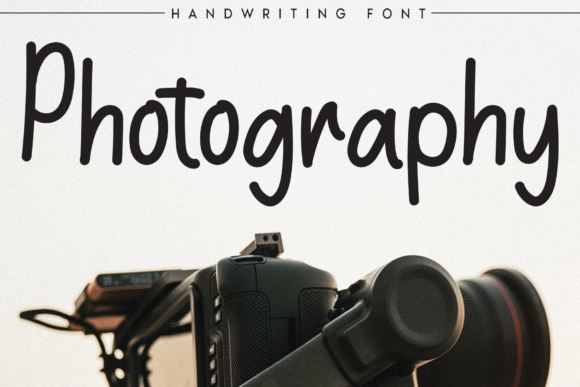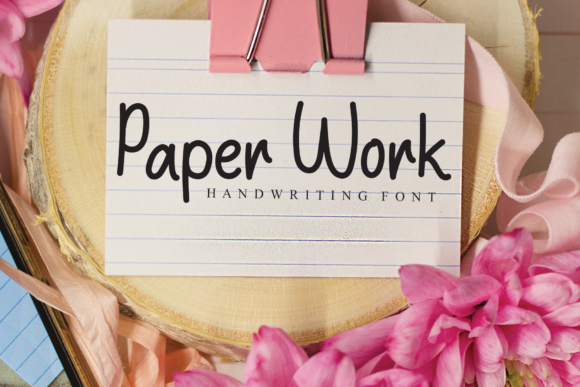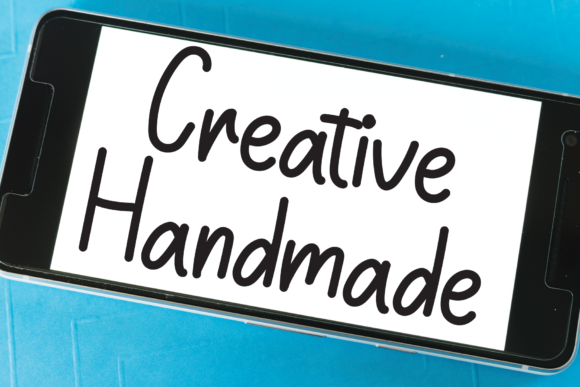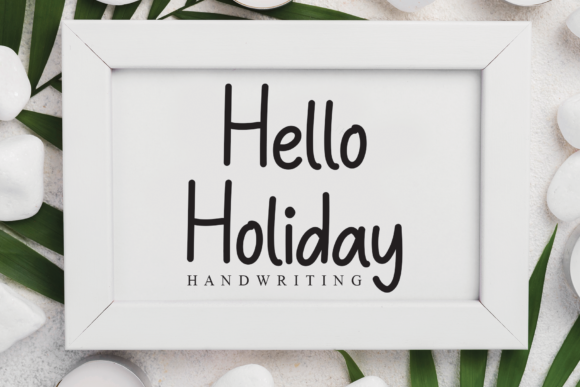
Coffee Break Font: The Perfect Addition to Your Design Arsenal
Are you tired of using the same old fonts in your designs? Look no further than the Coffee Break Font, a simple and friendly handwritten font that’s sure to elevate your work. With its natural and unique style, Coffee Break is incredibly fitting to a large pool of designs, making it a versatile and valuable addition to any designer’s toolkit.
The Characteristics of Coffee Break Font
Coffee Break Font is a handwritten font that’s characterized by its simplicity and friendliness. It’s a font that’s designed to look approachable and inviting, making it perfect for designs that require a personal touch. The font features a natural, cursive style with subtle imperfections that give it a human feel. This makes it ideal for use in a variety of designs, from branding and packaging to social media graphics and blog posts.
The Benefits of Using Coffee Break Font
So why should you choose Coffee Break Font for your designs? Here are just a few benefits of using this versatile font:
- Unique Style: Coffee Break Font has a unique and distinctive style that’s sure to set your designs apart from the crowd. Its natural, handwritten look is instantly recognizable and can help to create a cohesive brand identity.
- Versatility: Coffee Break Font is incredibly versatile and can be used in a wide range of designs, from formal and professional to casual and playful. Whether you’re creating a logo, brochure, or social media graphic, this font is sure to fit the bill.
- Ease of Use: Coffee Break Font is easy to read and use, making it perfect for designs that require a lot of text. Its clear and legible style ensures that your message gets across quickly and efficiently.
How to Use Coffee Break Font in Your Designs
Using Coffee Break Font in your designs is easy. Here are a few tips to get you started:
- Pair it with Other Fonts: Coffee Break Font pairs well with a variety of other fonts, from bold and modern to elegant and sophisticated. Experiment with different font combinations to find the perfect look for your design.
- Use it for Headings and Titles: Coffee Break Font is perfect for use in headings and titles, where its unique style can really shine. Try using it to add a personal touch to your blog posts, social media graphics, and marketing materials.
- Add a Personal Touch: Coffee Break Font is all about adding a personal touch to your designs. Try using it to create custom illustrations, graphics, and other visual elements that showcase your brand’s personality.
Coffee Break Font in the World of Crafting
Coffee Break Font isn’t just for designers – it’s also a great addition to any crafter’s toolkit. Whether you’re creating handmade cards, scrapbooking, or making DIY signs, this font can add a personal touch to your projects. Here are a few ways crafters can use Coffee Break Font:
- Handmade Cards: Add a personal touch to your handmade cards with Coffee Break Font. This font is perfect for creating custom greetings, titles, and other text elements.
- Scrapbooking: Coffee Break Font is a great addition to any scrapbooking project. Try using it to add journaling, captions, and other text elements to your pages.
- DIY Signs: Create custom signs with Coffee Break Font for a personal touch. This font is perfect for creating signs for your home, office, or business.
In conclusion, Coffee Break Font is a simple and friendly handwritten font that’s perfect for designers and crafters alike. Its natural and unique style makes it incredibly fitting to a large pool of designs, and its versatility and ease of use make it a valuable addition to any toolkit. Whether you’re creating professional designs or handmade crafts, Coffee Break Font is sure to elevate your work and add a personal touch.